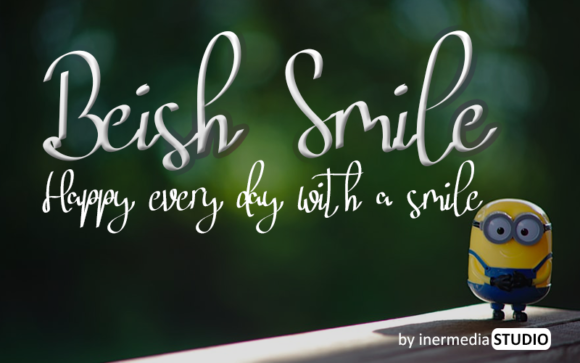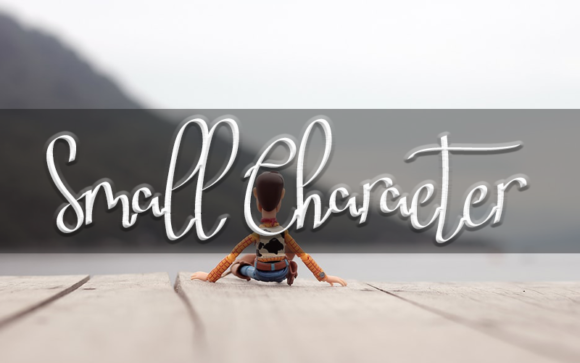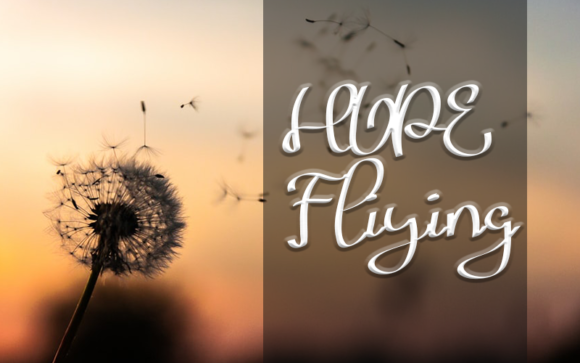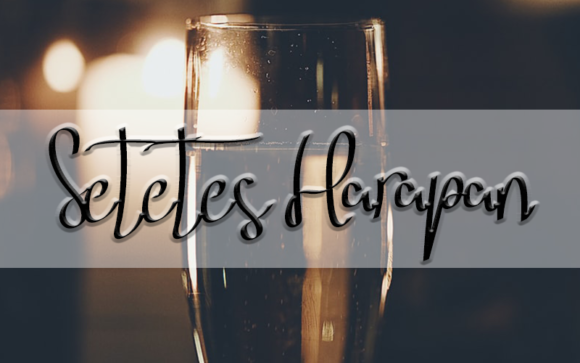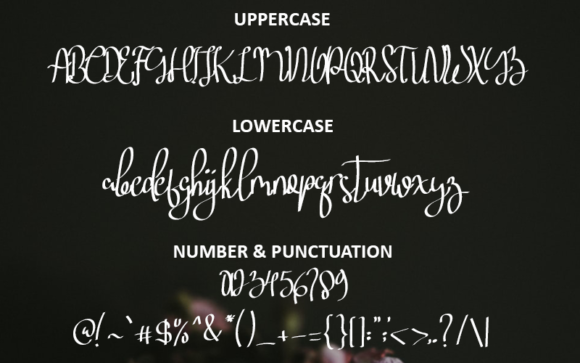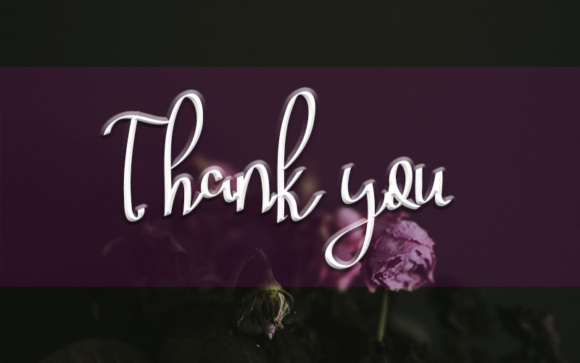
Beish Smile Font
About Beish Smile Font
Beish Smile embodies fun, quirkiness and authenticity. This unique handwritten font will turn any creative idea into a true standout.